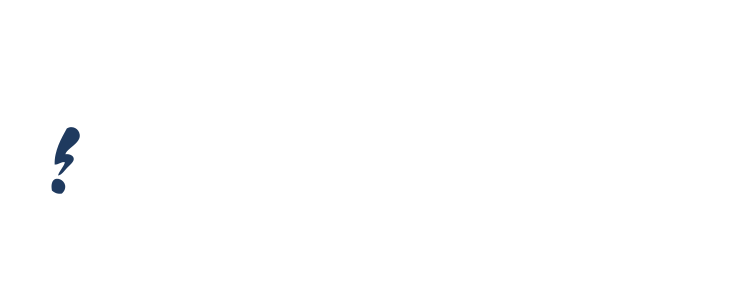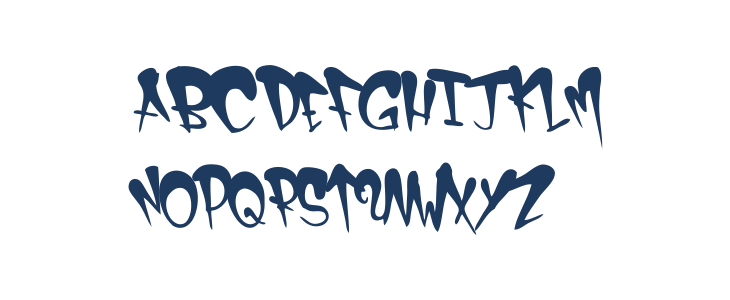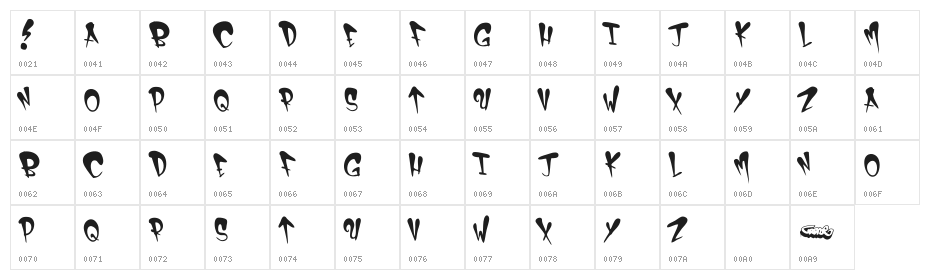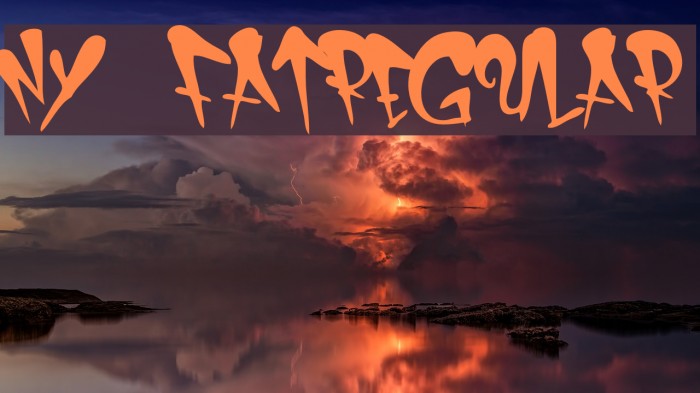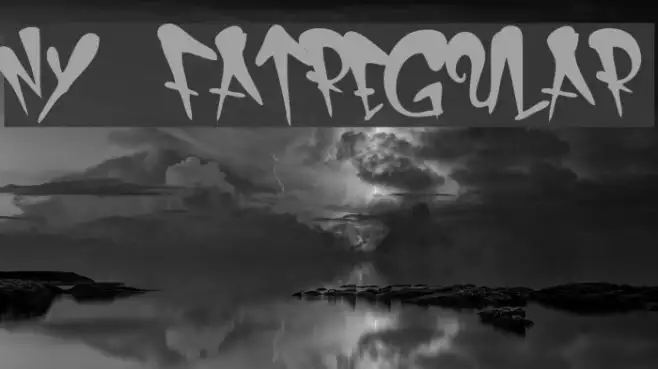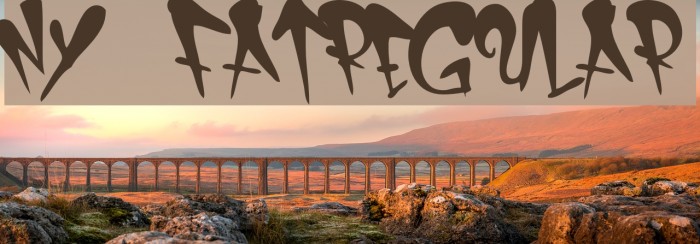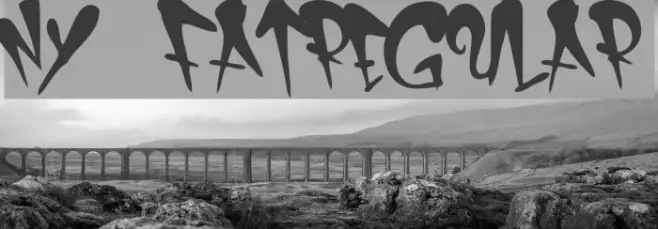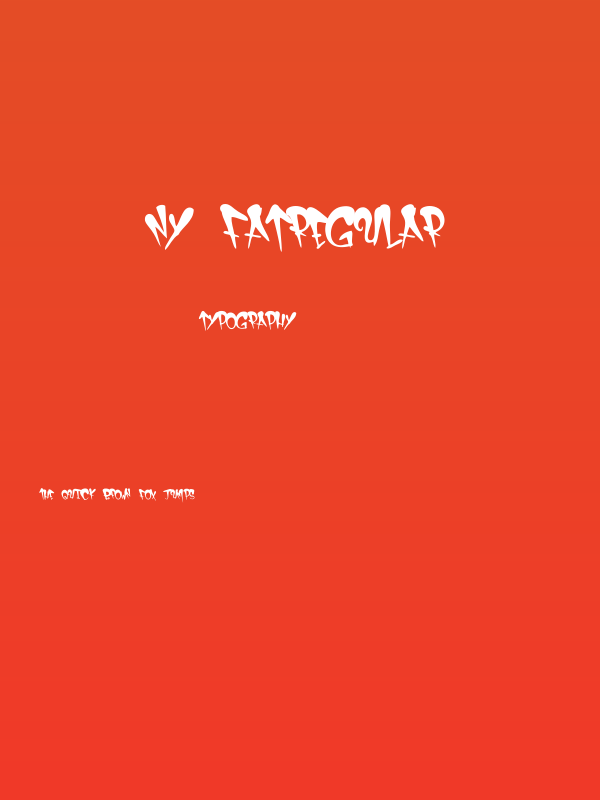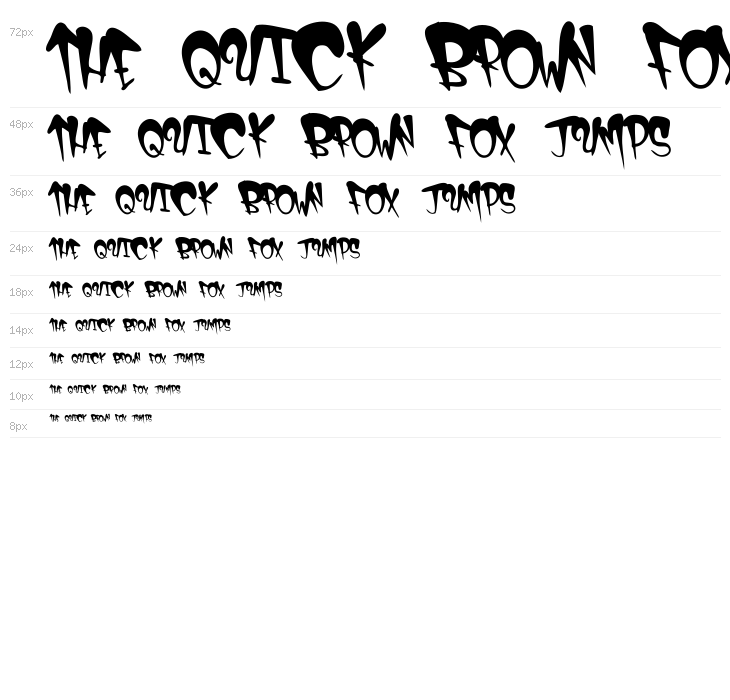
NY FATRegular Font
NY FATRegular Description
This font exhibits a bold and dynamic style, characterized by its thick, exaggerated strokes and playful, graffiti-like appearance. The letters are highly stylized with a sense of movement, featuring sharp angles and curves that give it an energetic and urban feel. The uppercase and lowercase letters maintain a consistent design, emphasizing the bold and artistic nature of the font. The numbers and special characters follow the same expressive style, making it suitable for creative and unconventional projects.
| Overall Style | Urban, Graffiti, Energetic |
| Use Case | Logos, Posters, Album Covers |
| Proposed Projects | Ideal for street art designs, music album covers, urban-themed posters, and creative branding projects. |